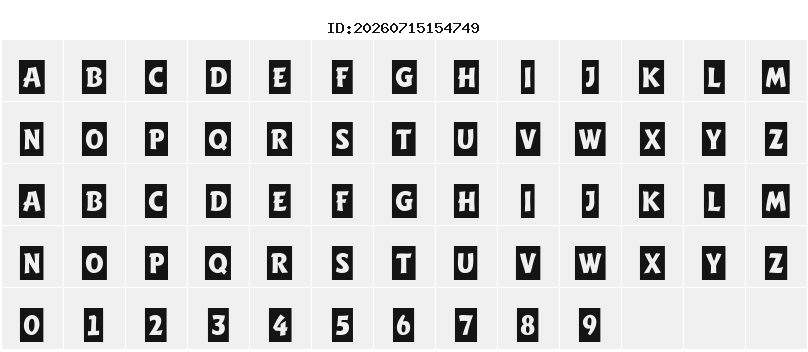
a_WritCm Preview
• Font Name: a_WritCm
• Font ID: ArsenalCompany: a_WritCameo: 1999
• Full Font Name: a_WritCameo
• Designer: W.Chufarofsky & M.Slutsker
About a_WritCm.ttf
a_WritCm.ttf is a modern, elegant sans-serif font designed for ultimate readability and visual harmony. Perfect for branding, headlines, web design, and print materials.